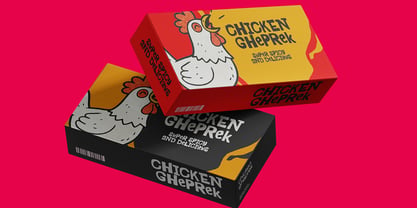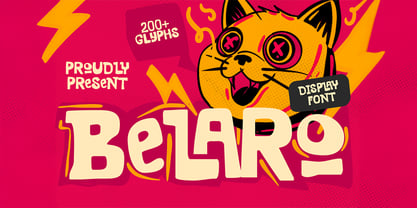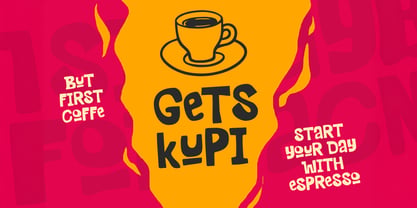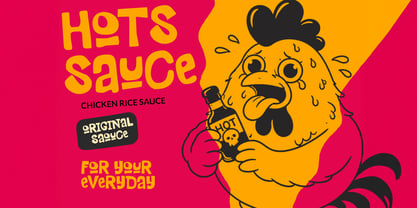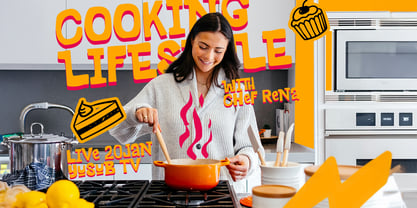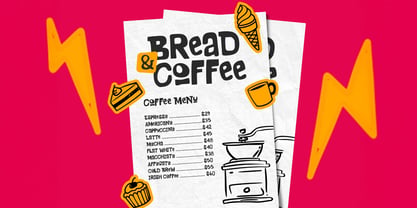
Belaro
Die Schriftfamilie Belaro wurde von Mirdhatillah entworfen und von Portograph Studio veröffentlicht. Belaro enthält 1 Stile. Mehr über diese Familie
Belaro is a bold and playful display font designed to bring fun, energy, and personality into your designs. Inspired by street food culture, coffee shops, festival posters, and cartoon-style typography, this font delivers strong visual impact with a friendly and expressive look. With its chunky shapes, rounded forms, and lively character, Belaro is perfect for eye-catching headlines, packaging, menus, and branding projects. The font maintains great readability while adding a joyful and modern touch to any layout. Belaro comes with uppercase and lowercase letters, numerals, punctuation, symbols, and multilingual support, making it versatile for both digital and print projects. Whether you’re creating food packaging, café branding, event posters, or social media visuals, Belaro helps your message stand out with bold charm and creative flair.